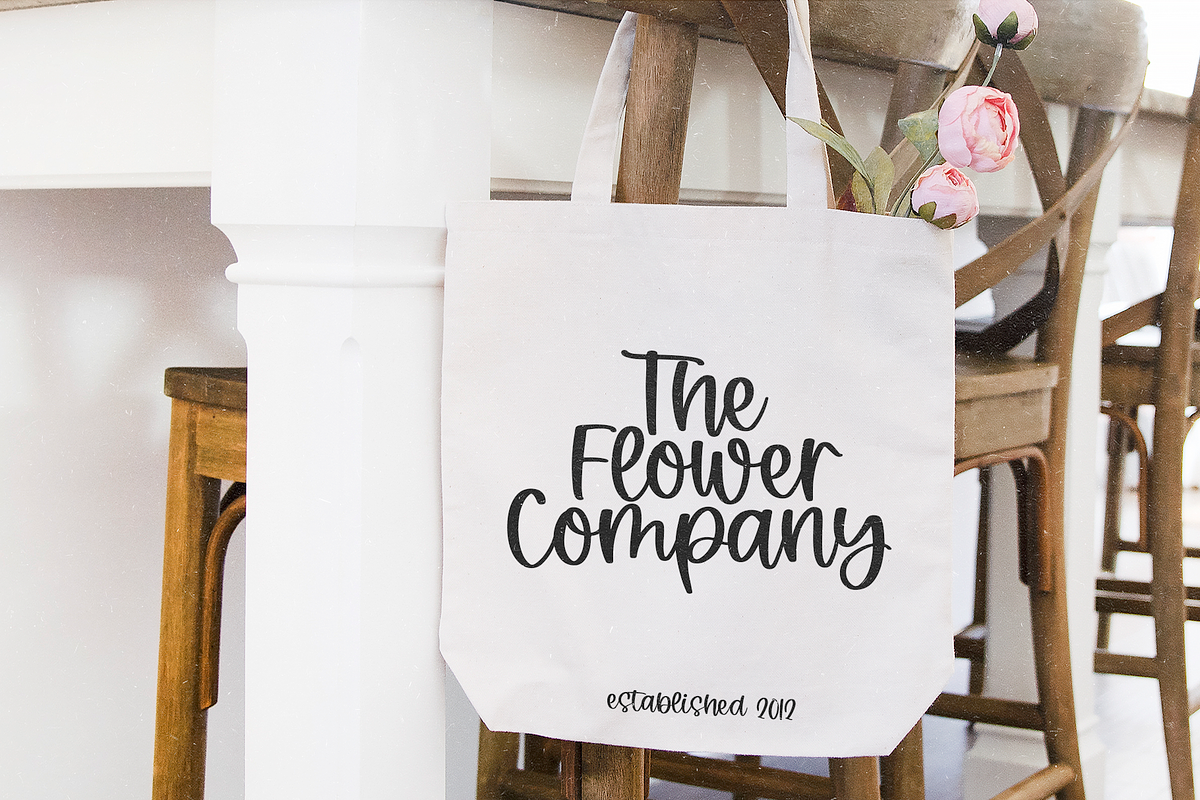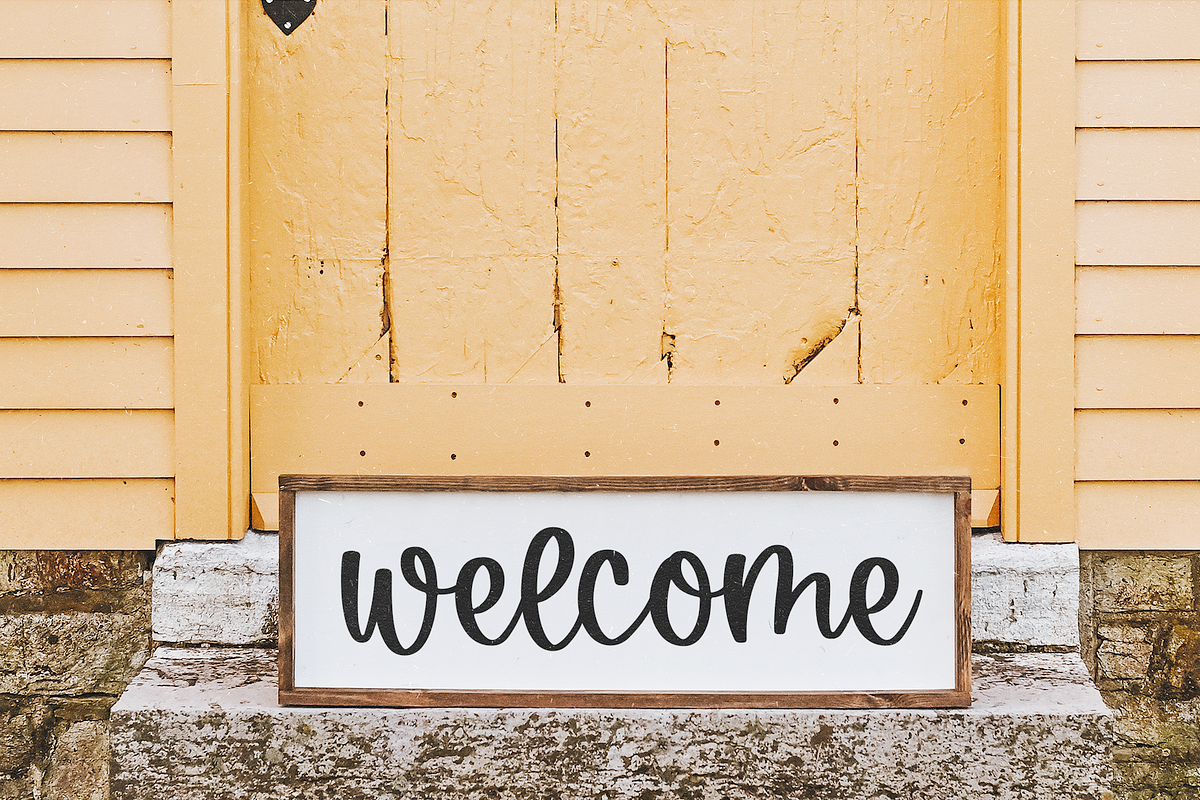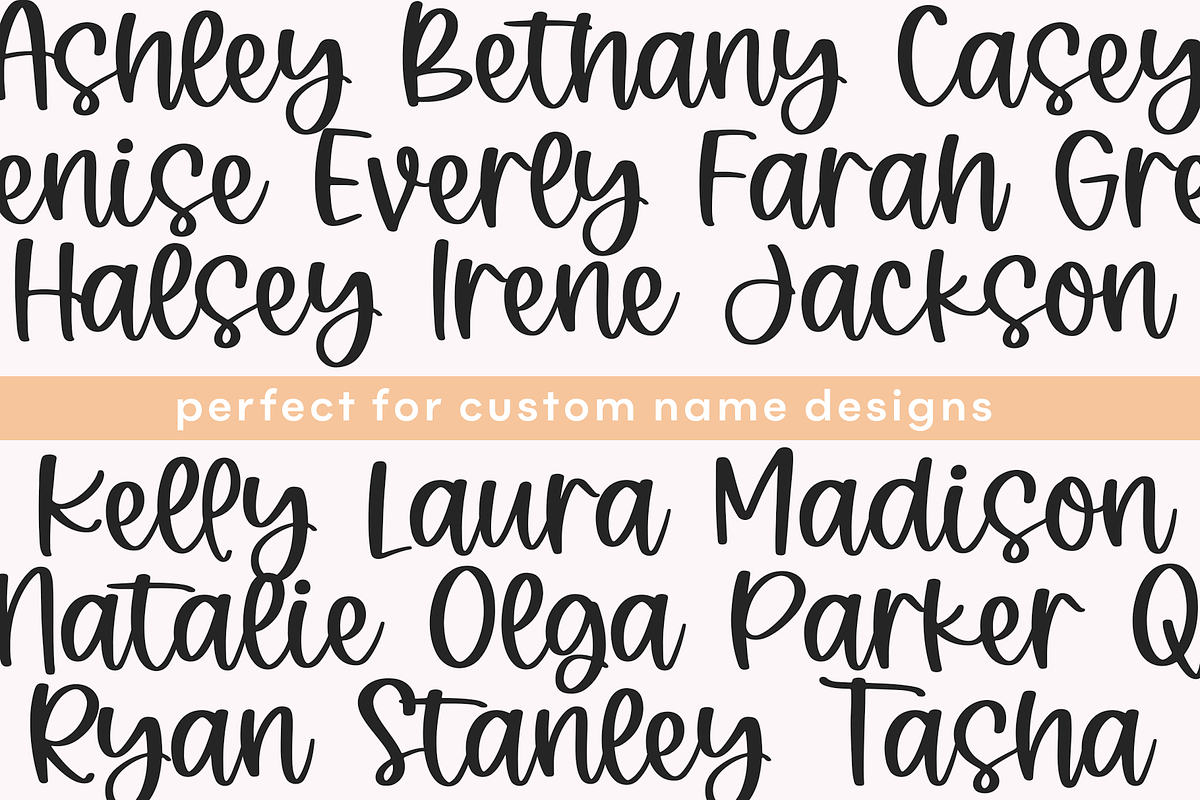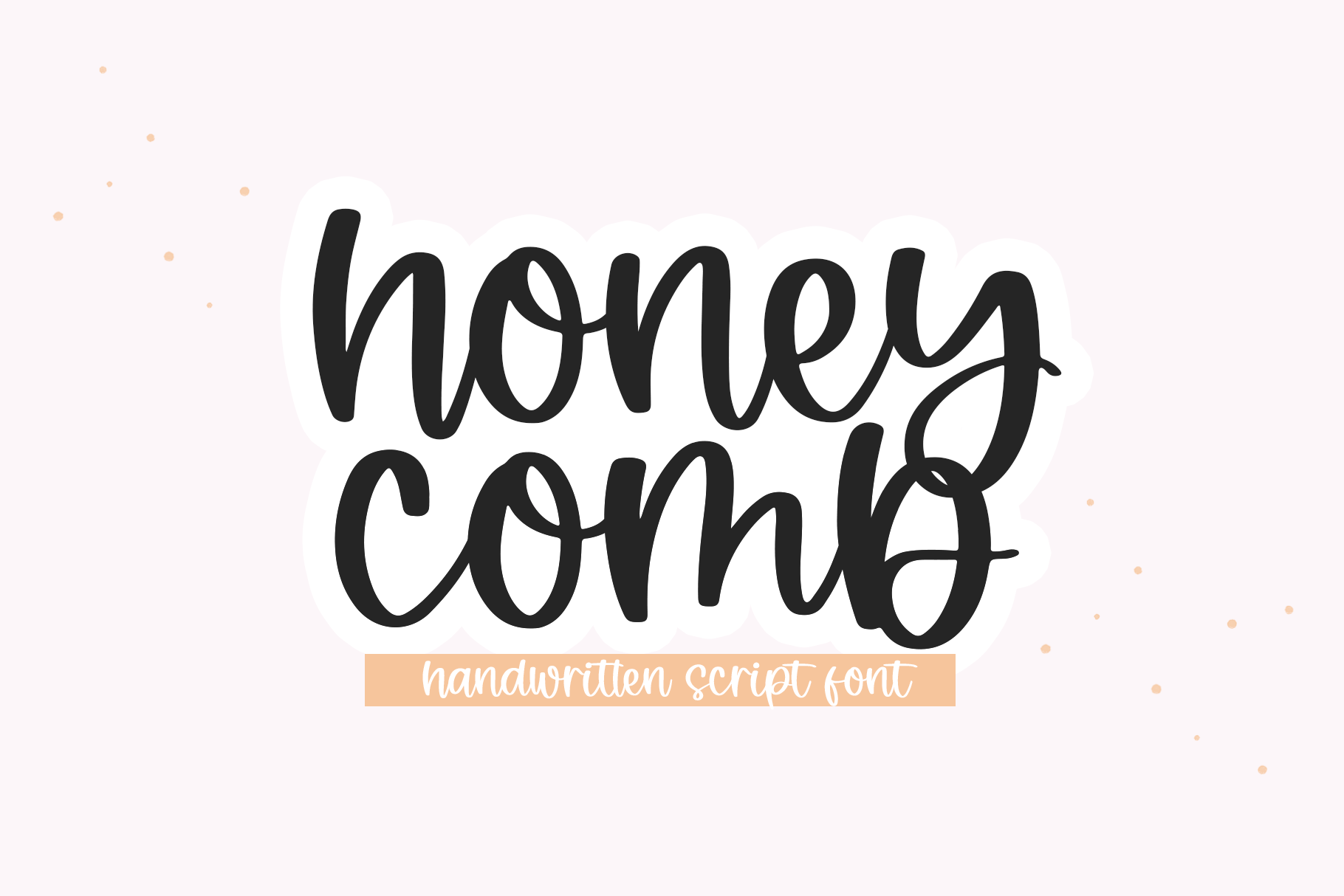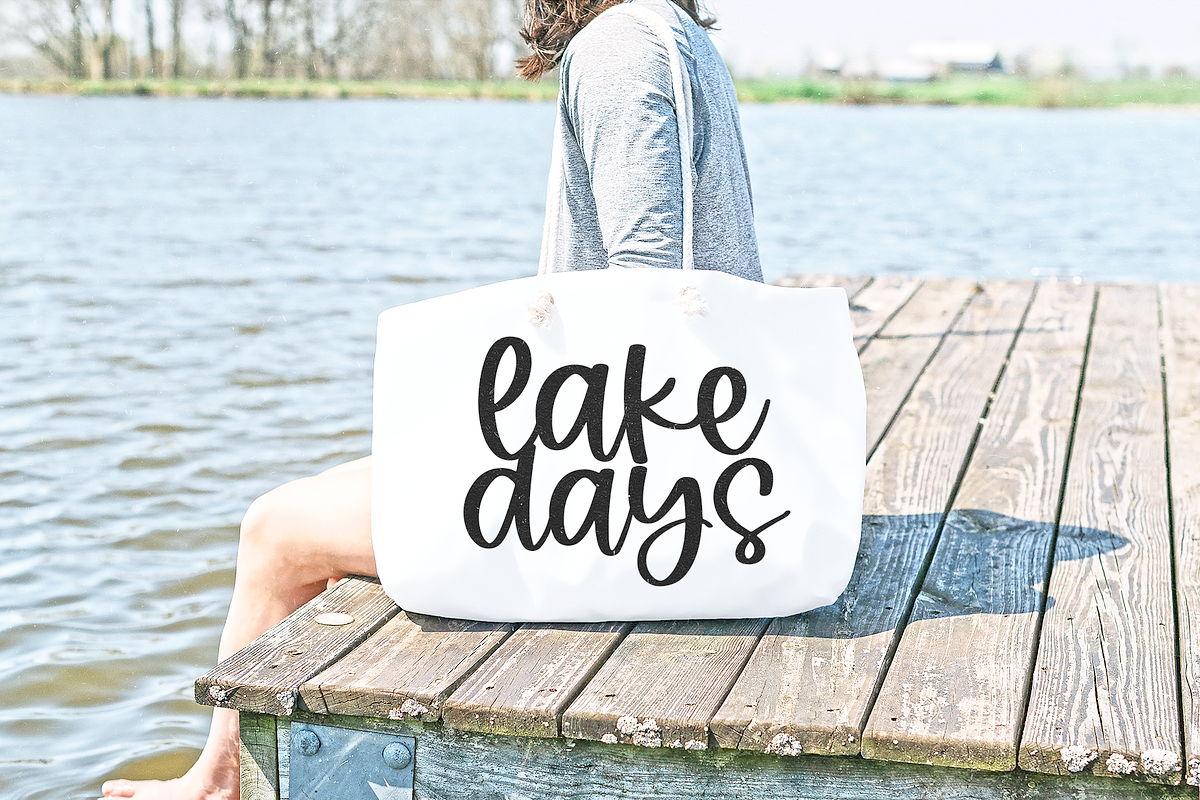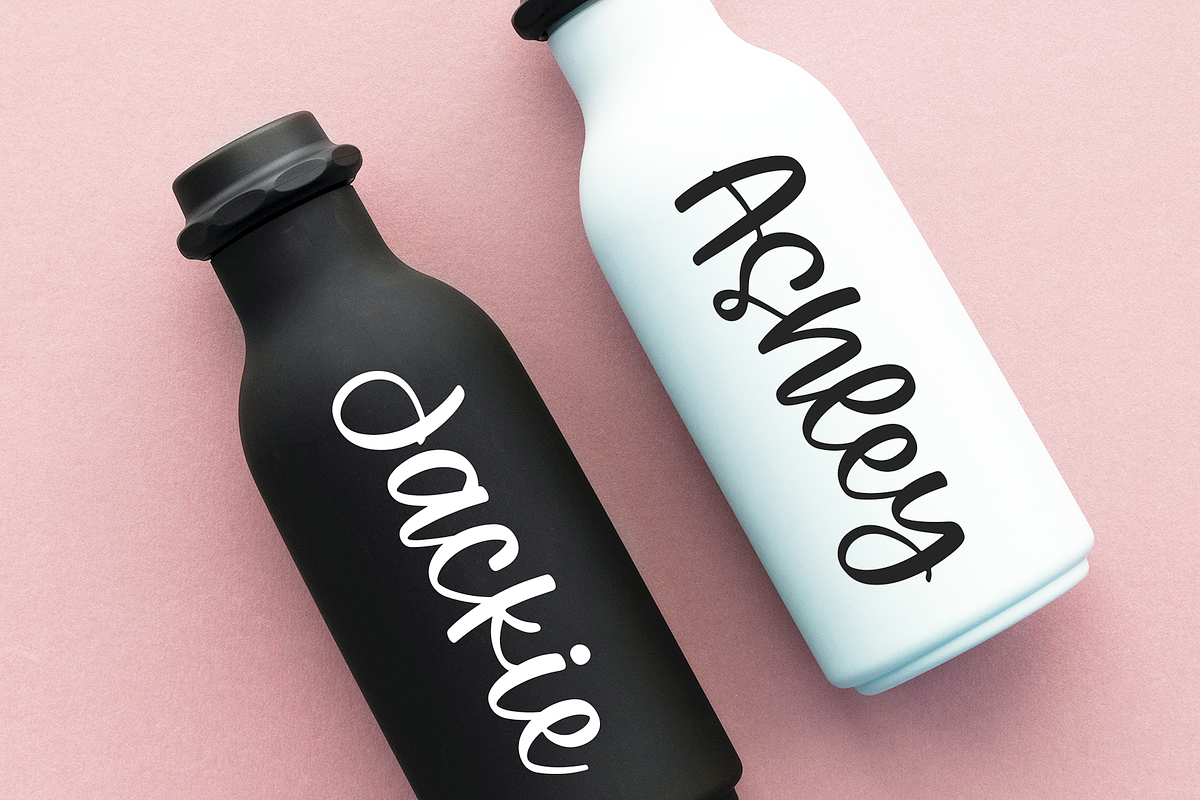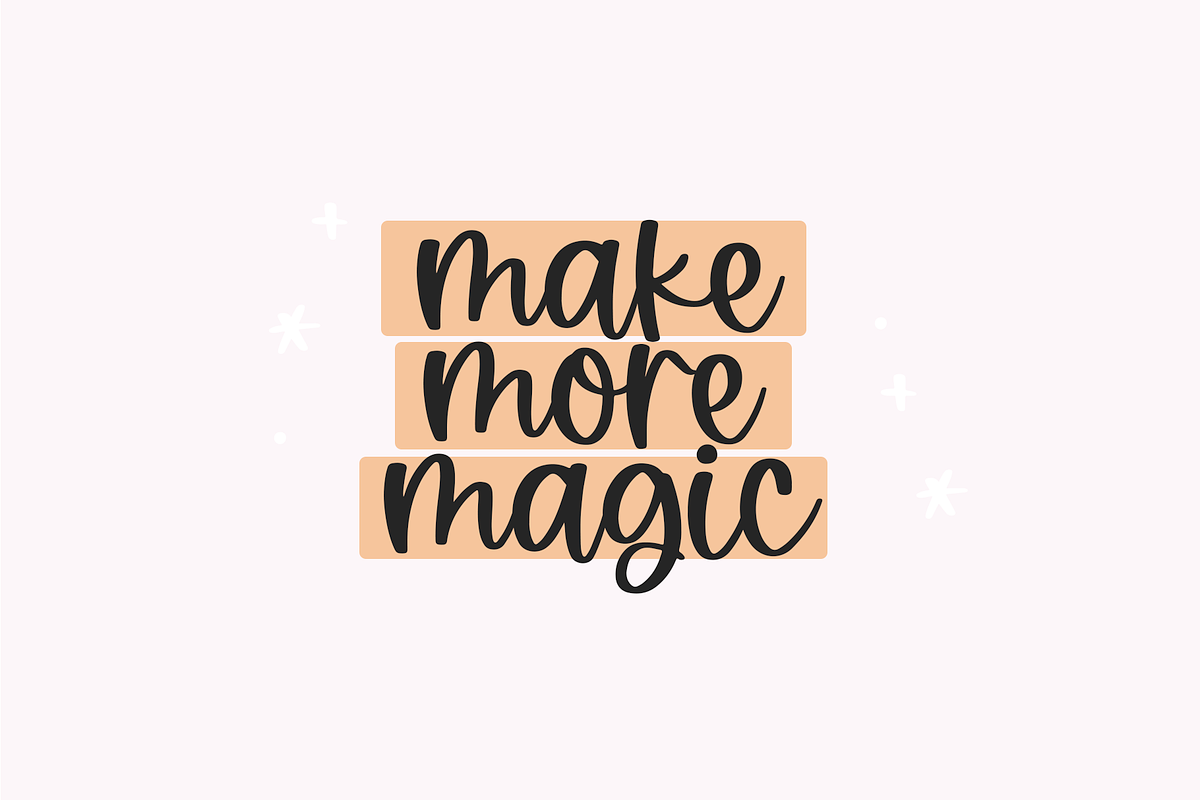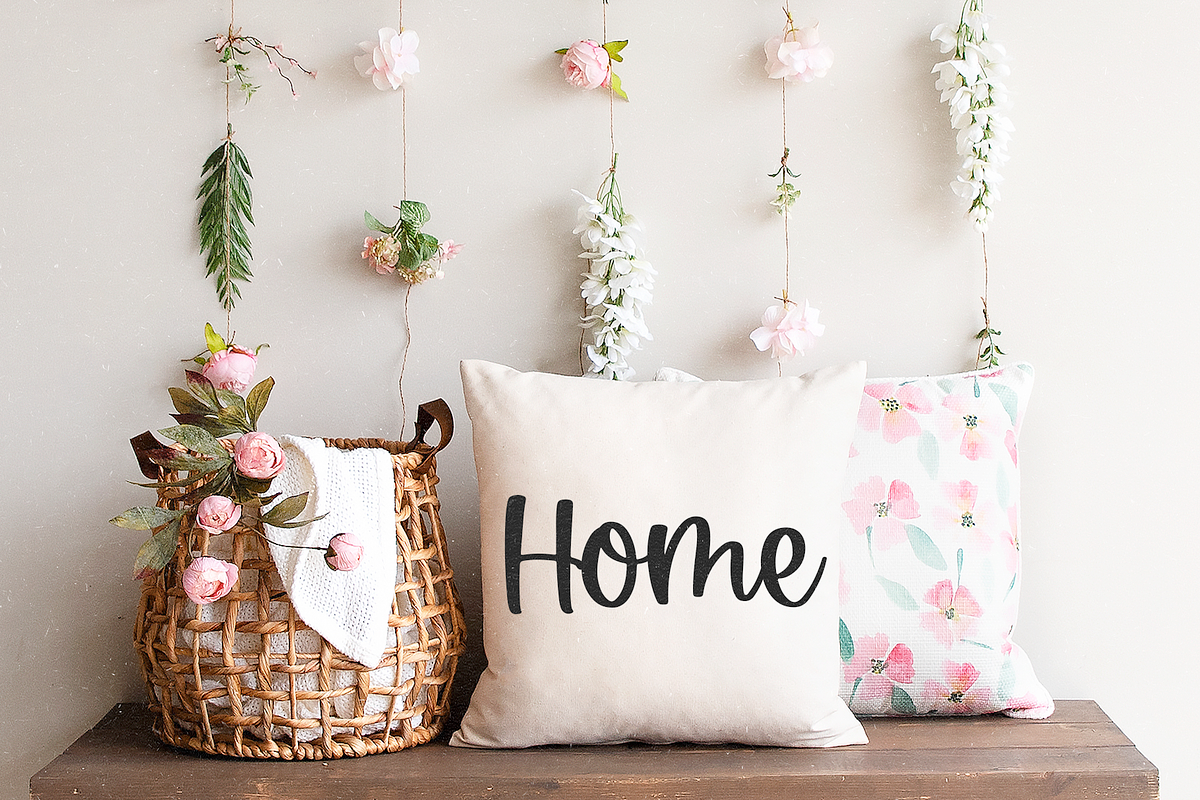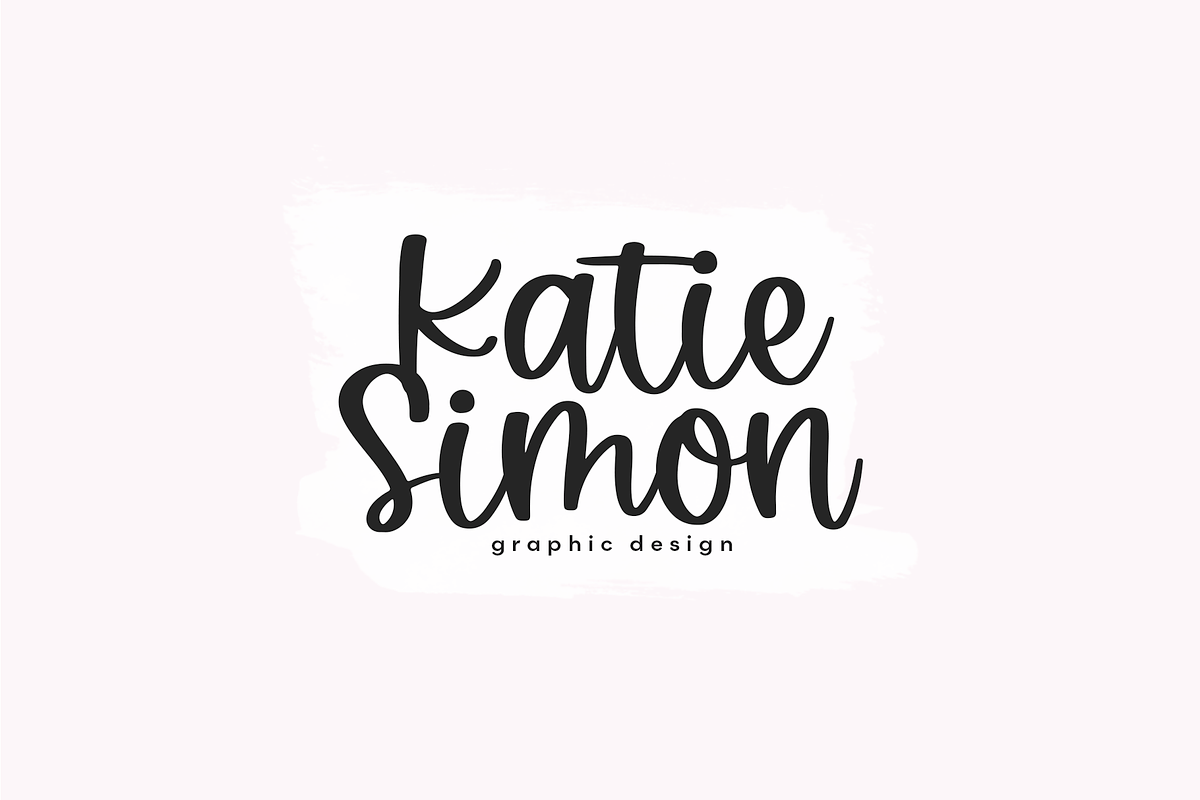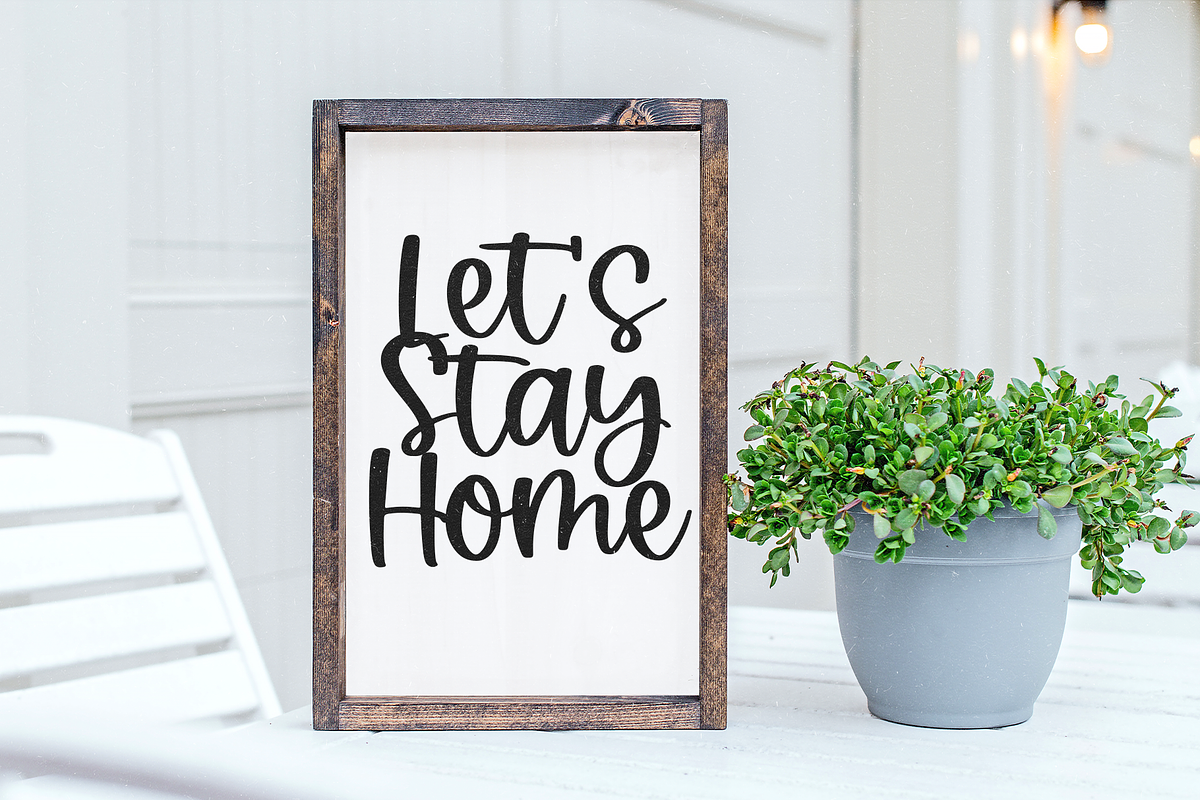
Honeycomb | Handwritten Script Font
Honeycomb is a bouncy handwritten script font.
This font is perfect for farmhouse decor, svg designs, shirts, crafts, websites, branding, blogs, logos, invitations and more!